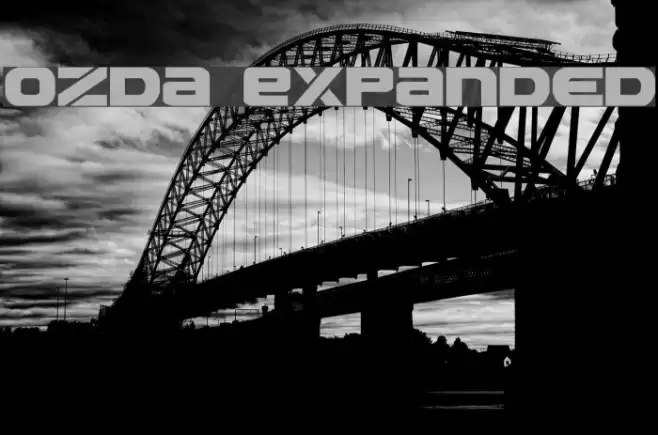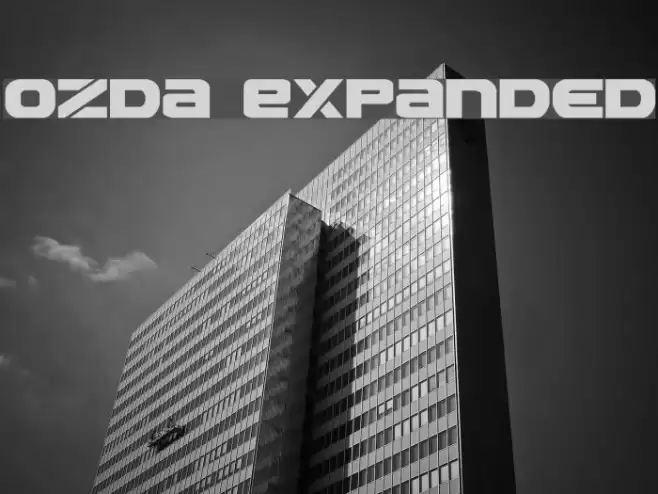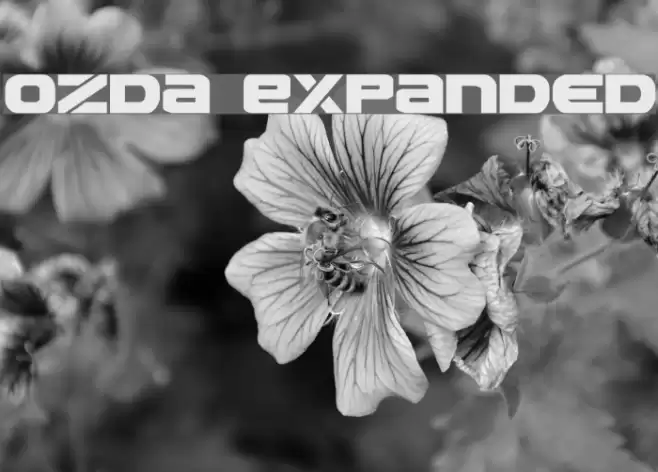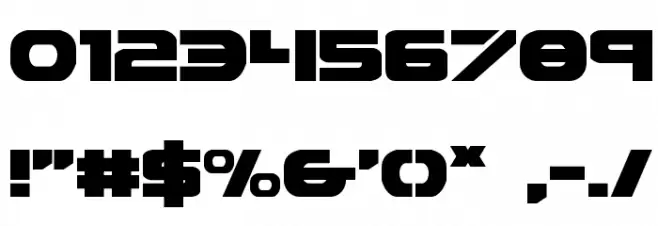
Ozda Expanded Font
Ozda Expanded Description
This font features a bold and futuristic design with geometric shapes and sharp angles. The characters are wide and have a distinct, blocky appearance, making them highly legible and impactful. The uppercase and lowercase letters share a consistent style, with the lowercase slightly smaller but maintaining the same boldness. Numbers and special characters follow the same design principles, ensuring uniformity across all glyphs. The font's modern aesthetic is ideal for projects that require a strong visual presence.
A bold, futuristic font with geometric shapes and sharp angles from Uncategorized fonts.
- Proposed Projects: Ideal for technology branding, sci-fi movie posters, video game titles, and modern advertising campaigns.